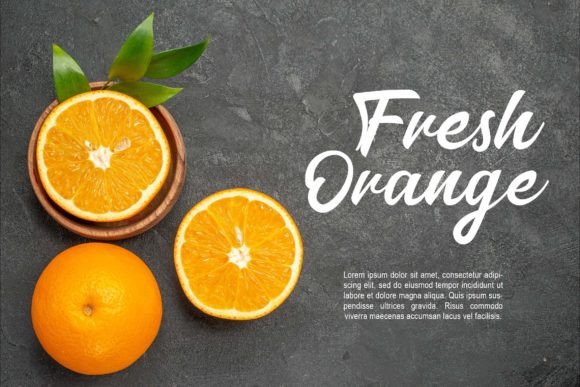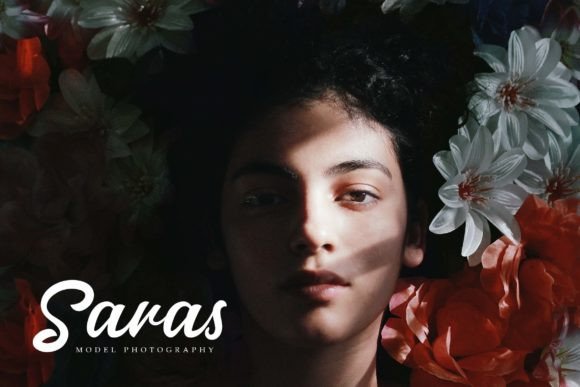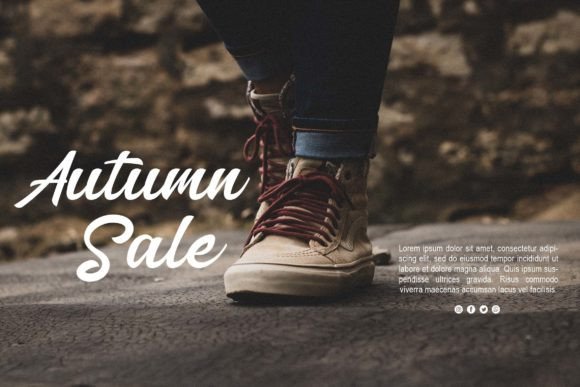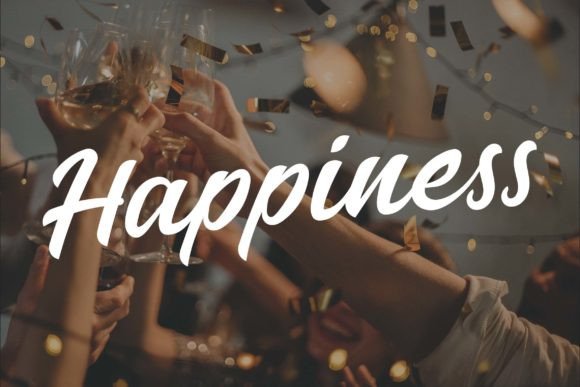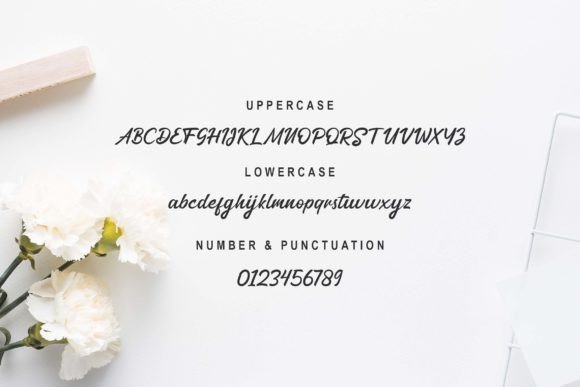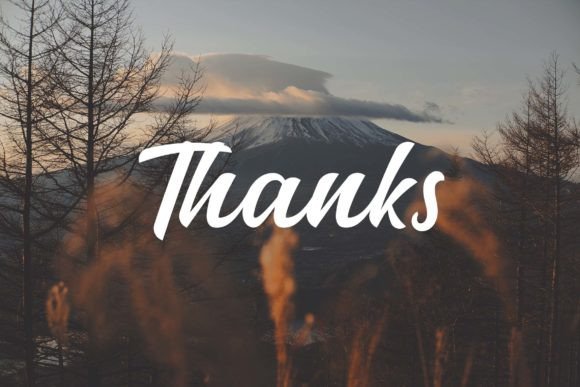
Introduction to Kantan Font
Imagine you’re working on a creative project, brainstorming ideas for a new logo or poster, and suddenly, the perfect font pops into your head. It’s that elusive, handwritten feel that makes your design stand out. For designers, finding the right font can be the difference between a mediocre and a mesmerizing piece of art. That’s where the Kantan Font comes in – a stunning, high-quality display font that’s about to revolutionize your design resource.
With its authentic, handwritten feel, the Kantan Font is perfect for designers looking to add a touch of personality to their work. Whether you’re creating a poster, sticker, or invitation card, this font is sure to make your design shine. And the best part? It’s available for free download, making it an invaluable resource for any creative project.
Key Features of Kantan Font
- High-quality design resource suitable for creative projects requiring a unique touch.
- Offers a high-resolution design, ideal for printing and large-scale applications.
- Available in multiple font sizes and styles, catering to diverse design needs.
- Can be easily customized and edited to suit specific design requirements.
Honest Review: Kantan Font
I recently had the chance to work with the Kantan Font, and I must say it’s been a game-changer for my design projects. The font is available for free download, making it a valuable resource for designers working on creative projects with limited budgets.
- High-quality design: The Kantan Font boasts a clean and modern design that’s perfect for a variety of applications, from web design to print materials.
- Transparent background: The font’s transparent background makes it easy to use on complex designs without worrying about unwanted backgrounds.
What works well with the Kantan Font is its versatility and ease of use. I’ve used it for both personal and professional projects, and it’s always delivered great results. The font is also highly customizable, allowing me to tailor it to fit my specific design needs.
⚠️ However, I’ve noticed that the font can be a bit difficult to read in certain font sizes, which may limit its use in smaller designs. But overall, this is a minor issue compared to the font’s many benefits.
Overall, I’m thoroughly impressed with the Kantan Font. Its high-quality design, transparent background, and free download make it a must-have resource for any designer. I highly recommend it for anyone working on creative projects.
Kantan Font
Kantan Font is a high-quality design resource perfect for creative projects that require a unique and stylish touch. With its transparent background, this font is ideal for use in various design applications.
Tips for Getting the Most Out of Kantan Font
To get the most out of Kantan Font, experiment with different font sizes and styles. You can also combine it with other design elements to create a unique and eye-catching design.
Common Use Cases for Kantan Font
Kantan Font is ideal for use in creative projects such as logo design, branding, and marketing materials. Its unique style and transparent background make it perfect for use in digital designs.
Is the Kantan Font suitable for high-quality print projects?
Yes, the Kantan Font is designed to meet high-quality print standards. Its high-resolution design and smooth typography ensure that it will look great on various print materials, from business cards to posters. However, it’s always a good idea to test the font in your specific print application to ensure optimal results.